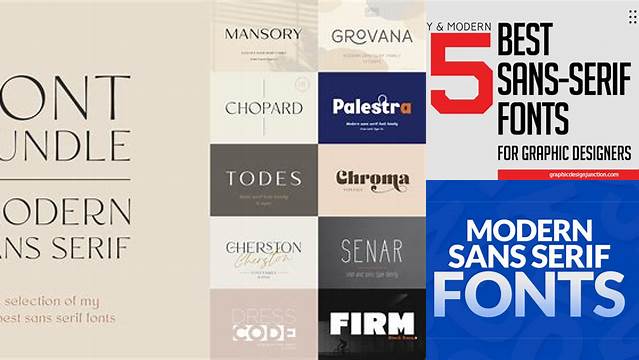
Top Sans Serif Fonts: A Designer's Guide
Are you guys looking to inject some modern flair into your design projects? Then you've come to the right place! Let's dive into the world of sans serif fonts, those sleek and minimalist typefaces that have become a staple in contemporary design. In this guide, we’ll explore some of the most popular sans serif fonts out there, discuss what makes them so effective, and give you some tips on how to use them in your own work. So, buckle up and get ready to level up your typography game!
What are Sans Serif Fonts?
First, let's break down what we mean by sans serif fonts. The term "sans serif" comes from French, meaning "without serifs." Serifs are the small decorative strokes that finish off the ends of letters in some typefaces, like Times New Roman. Sans serif fonts, on the other hand, lack these embellishments, giving them a cleaner and more modern appearance. This simplicity makes them incredibly versatile, suitable for everything from website body text to eye-catching headlines.
The absence of serifs often translates to a more legible and approachable typeface, particularly in digital formats. This is because the clean lines reduce visual clutter, making the letters easier to distinguish at various sizes and resolutions. Think about it: when you're reading a long article on your phone, you want a font that's easy on the eyes, right? That's where sans serif fonts shine. They are the workhorses of the digital age, offering clarity and readability without sacrificing style.
But the appeal of sans serif fonts goes beyond mere legibility. They also exude a sense of modernity and simplicity that resonates with contemporary design aesthetics. Their clean lines and geometric shapes convey a sense of efficiency and directness, making them ideal for brands that want to project a forward-thinking image. Whether it's in a logo, a website, or a marketing campaign, a well-chosen sans serif font can instantly elevate the visual appeal and professionalism of your design.
Moreover, the versatility of sans serif fonts allows them to be used in a variety of contexts. They can be paired with serif fonts to create a dynamic contrast, or they can stand alone to create a minimalist and cohesive look. Their adaptability makes them a favorite among designers who want to maintain a consistent visual identity across different platforms and mediums. From the sleek interface of a mobile app to the bold headlines of a print advertisement, sans serif fonts can handle it all with grace and style.
In essence, sans serif fonts are the unsung heroes of modern typography. Their simplicity, legibility, and versatility make them an indispensable tool for any designer looking to create a contemporary and impactful visual experience. So, let's delve deeper into some specific examples and explore how you can use them to enhance your own projects.
Popular Sans Serif Fonts: A Deep Dive
Now, let's get to the fun part: exploring some of the most popular sans serif fonts out there. We'll look at what makes each font unique, its best uses, and why it has become a go-to choice for designers around the globe. This section will give you a solid understanding of the options available and help you choose the right font for your next project.
Helvetica: The Timeless Classic
First up, we have Helvetica, arguably the most famous sans serif font of all time. Created in 1957 by Swiss typeface designer Max Miedinger, Helvetica is renowned for its neutrality and clarity. It’s a neo-grotesque design, which means it’s characterized by its clean lines, uniform strokes, and even spacing. This makes it incredibly legible and versatile, suitable for a wide range of applications.
Helvetica's neutrality is its superpower. It doesn't scream for attention; instead, it quietly does its job, conveying information with utmost clarity. This is why it has been adopted by countless brands and institutions worldwide. You'll find Helvetica in everything from corporate logos to signage systems, and even in the New York City subway system (though it's gradually being replaced). Its widespread use is a testament to its timeless appeal and effectiveness.
But what exactly makes Helvetica so special? It's the font's commitment to simplicity and legibility. The uniform strokes and even spacing create a sense of balance and harmony, making it easy for the eye to follow. The absence of any strong personality traits allows the content to take center stage, which is crucial in many design contexts. Whether you're designing a user interface, a brochure, or a website, Helvetica can provide a solid foundation for your typography.
However, Helvetica's ubiquity can also be a drawback. Because it's so widely used, it can sometimes feel a bit generic or overused. To combat this, designers often look for ways to make it their own, such as using different weights and styles or pairing it with other fonts. Despite this potential pitfall, Helvetica remains a staple in the designer's toolkit, and its enduring popularity is a testament to its quality and versatility.
In conclusion, sans serif fonts are a vital component of modern design. Their simplicity, legibility, and versatility make them an excellent choice for a wide range of projects. By understanding the unique characteristics of different sans serif fonts and considering the specific needs of your project, you can make informed decisions that elevate your designs. So go ahead, guys, explore the world of sans serif typography and unleash your creative potential!